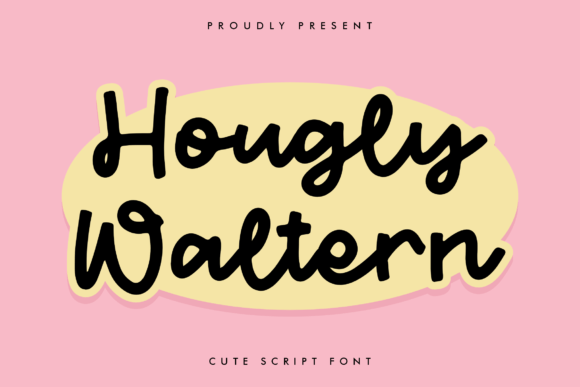
Journey into the world of elegance and charm with Hougly Waltern: a script font that captivates and inspires. This exquisite creation from Letterfabric transcends the boundaries of ordinary, offering a unique and whimsical touch to your creative endeavors.
With Hougly Waltern, your designs will blossom into a symphony of sophistication. Its graceful curves and playful strokes dance across the page, evoking a sense of timeless beauty. Whether you're crafting logos, branding projects, or enchanting homeware designs, this font adds a touch of magic that elevates your creations.
Imagine your product packaging adorned with the allure of Hougly Waltern. Its delicate lines and enchanting characters will transform ordinary boxes into works of art, captivating the hearts of your customers. Quotes and posters adorned with this font become windows into a world of inspiration, where words dance with grace and meaning.
Step into the realm of fashion with Hougly Waltern, where t-shirts and shopping bags become canvases for your creativity. Its charming style adds a touch of individuality, making each piece a statement of personal style. Book covers and name cards adorned with this font exude an aura of sophistication and elegance, leaving a lasting impression wherever they go.
Hougly Waltern's versatility extends to invitation cards, greeting cards, and labels, adding a touch of whimsy and delight to life's special moments. Its presence transforms photographs into cherished memories, capturing the essence of joy and love. Watermarks and special events take on a new level of enchantment, leaving an indelible mark on the hearts of those who witness them.
Hougly Waltern is not just a font; it's an experience. It's an invitation to let your imagination soar, to create designs that are as unique and captivating as you are. Its beauty is undeniable, its charm irresistible. Embrace the allure of Hougly Waltern and watch your creative dreams come to life.